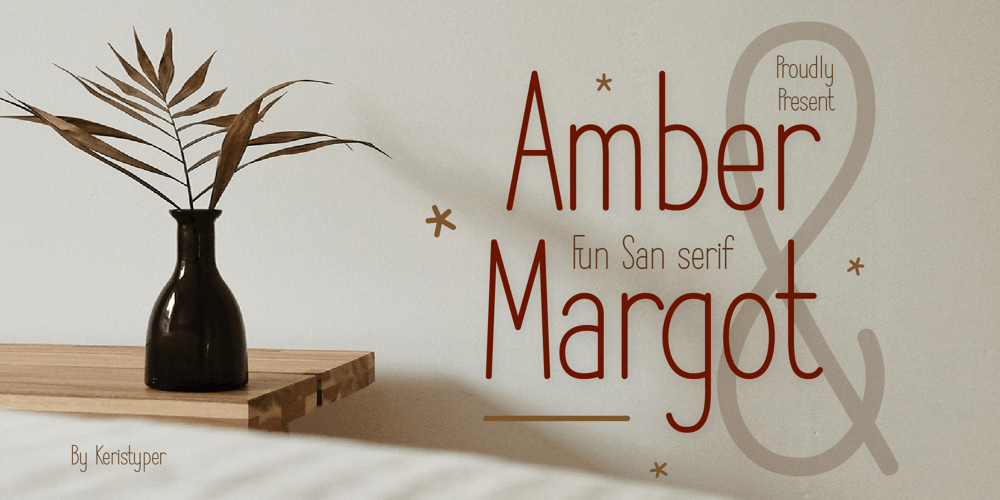
Amber & Margot Font Family was designed by Tezar Tantular and published by Keristyper Studio. Amber & Margot contains 1 styles and family package options. Introducing Amber & Margot the Sanserif Fun Font It’s a modern, chic and stylish handwritten font, that gives the catchy designThis font is good for logo design, Social media, Movie Titles, Books Titles, short text even long text letters, and good for your secondary text font with sans or serif.Featured: OTF Standard Uppercase & Lowercase Numeral & Punctuation Multilingual : ä ö ü Ä Ö Ü ß ¿ ¡ Alternate & Ligature PUA encoded We recommend programs that support the OpenType feature and the Glyphs panel such as Adobe applications or Corel Draw. so you can use all the variations of the glyphs. Hope you enjoy our fonts!